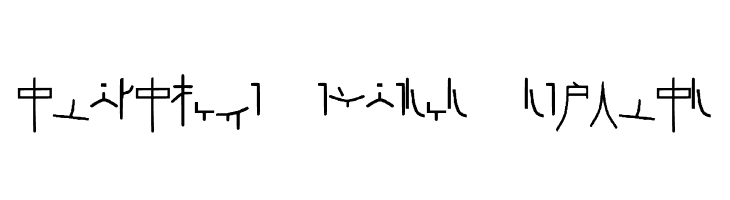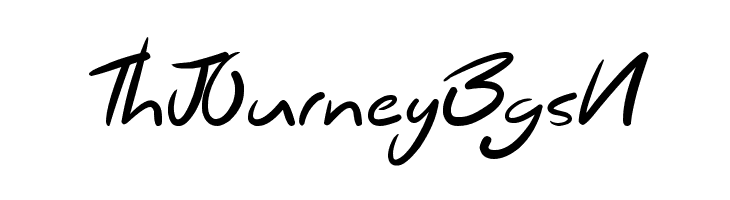
A dynamic handwritten font with fluid strokes and a playful character.
An elegant italic font with smooth curves and moderate contrast.
A bold, italicized font with a futuristic, angular design.
A bold, three-dimensional font with a vintage, industrial feel and dotted interior.
A modern, geometric sans-serif font with clean lines and uniform stroke widths.
A dot matrix font with a retro digital display aesthetic.
设计师偏爱 japanapush, Virginie, A-Maze, VenturisSansADF-Italic and 4114 Blaster Bold Italic,因为其造型干净、适用范围广—— 从品牌识别到落地页、海报都能胜任。